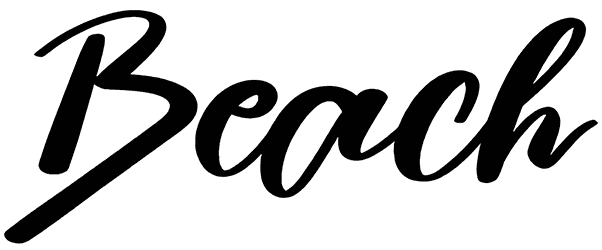
Beach Font
Are you seeking a modern and realistic letterform for your present design? Prepare yourself for a cool item that can impress you. Beach font with its casual visual can be a perfect selection for many projects, like a restaurant sign, a summer party flyer, and so forth. This beach font almost covers all of the characters, and it will give you the freedom to use it for your intended projects.